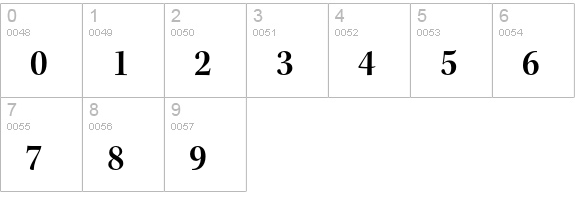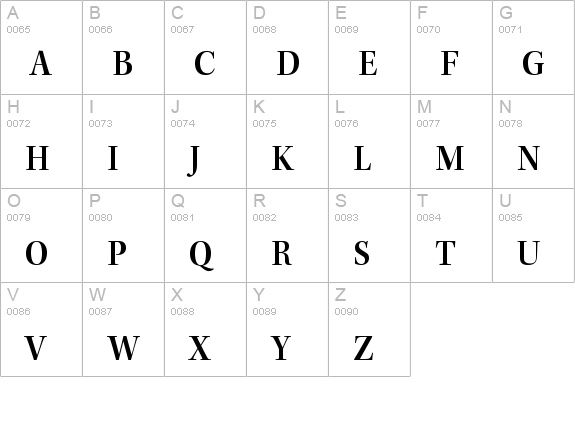
Kepler Std Semibold Semicondensed Subhead Font Details
Kepler Std Semibold Semicondensed Subhead is a sub-bold, structured variant in the Kepler typeface family \xE2\x80\x94 well suited to sub-headlines and emphasised passages.
Kepler Std Semibold Semicondensed Subhead is a modern and versatile font that effortlessly combines elegance and readability. Designed with precision and attention to detail, this font is perfect for creating eye-catching subheadings and titles that demand attention. With its semi-bold weight and condensed form, Kepler Std Semibold Semicondensed Subhead exudes confidence and authority. Its clean lines and balanced proportions make it suitable for a wide range of design projects, from editorial layouts to branding materials and web designs. The versatility of this font is further enhanced by its extensive character set, which includes a wide range of diacritics and punctuation marks. Whether you're looking to add a touch of sophistication to your print materials or make a bold statement on your website, Kepler Std Semibold Semicondensed Subhead has got you covered. What's even better is that this font is available for free download at FontsMarket.com. Yes, you read that right – you can get your hands on this exceptional typeface without spending a dime. FontsMarket.com offers a vast collection of high-quality fonts, and Kepler Std Semibold Semicondensed Subhead is just one of the many gems you can find on their website. So why wait? Elevate your designs with the striking and versatile Kepler Std Semibold Semicondensed Subhead font today. Download it for free at FontsMarket.com and unlock a world of creative possibilities.